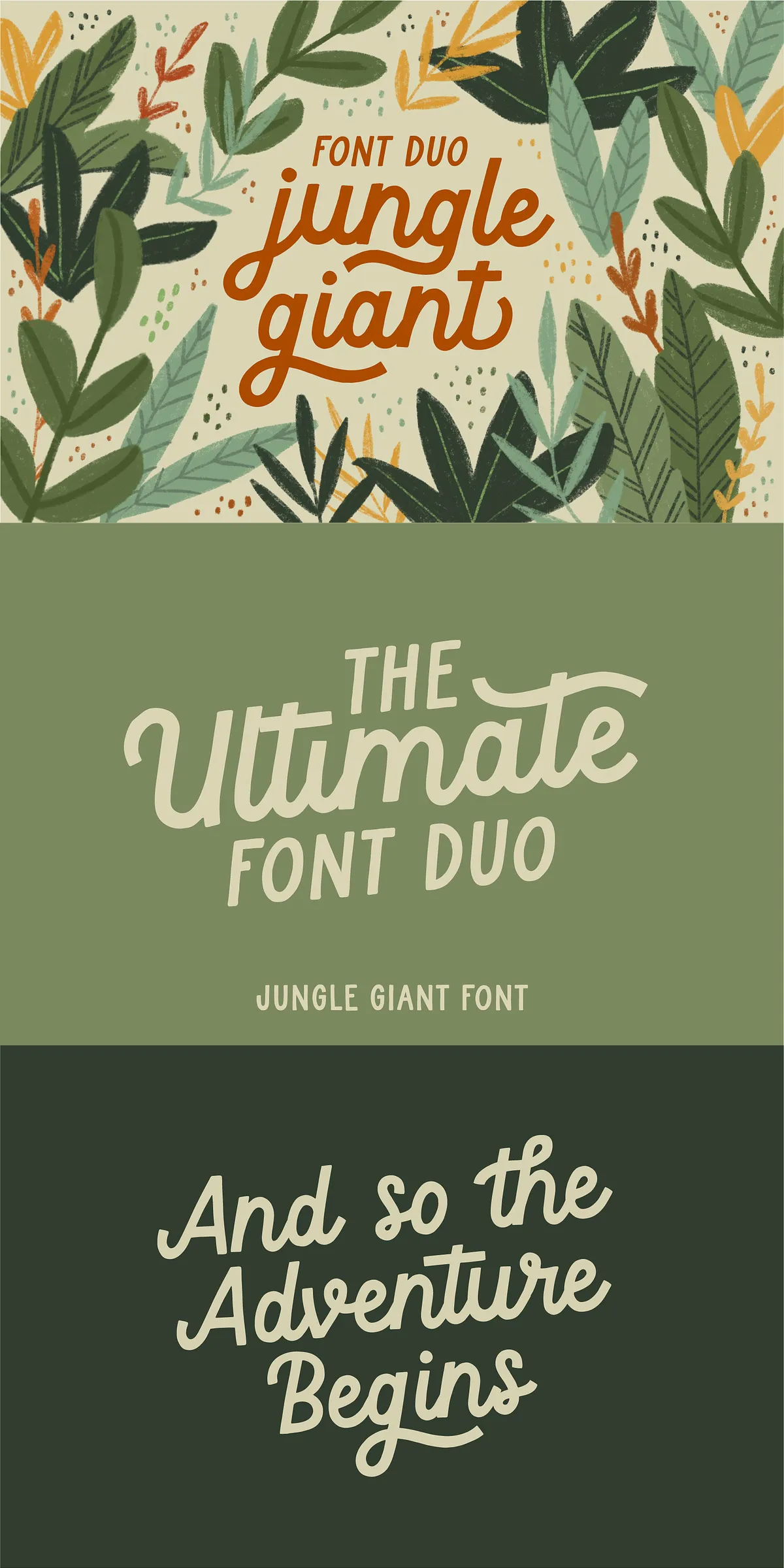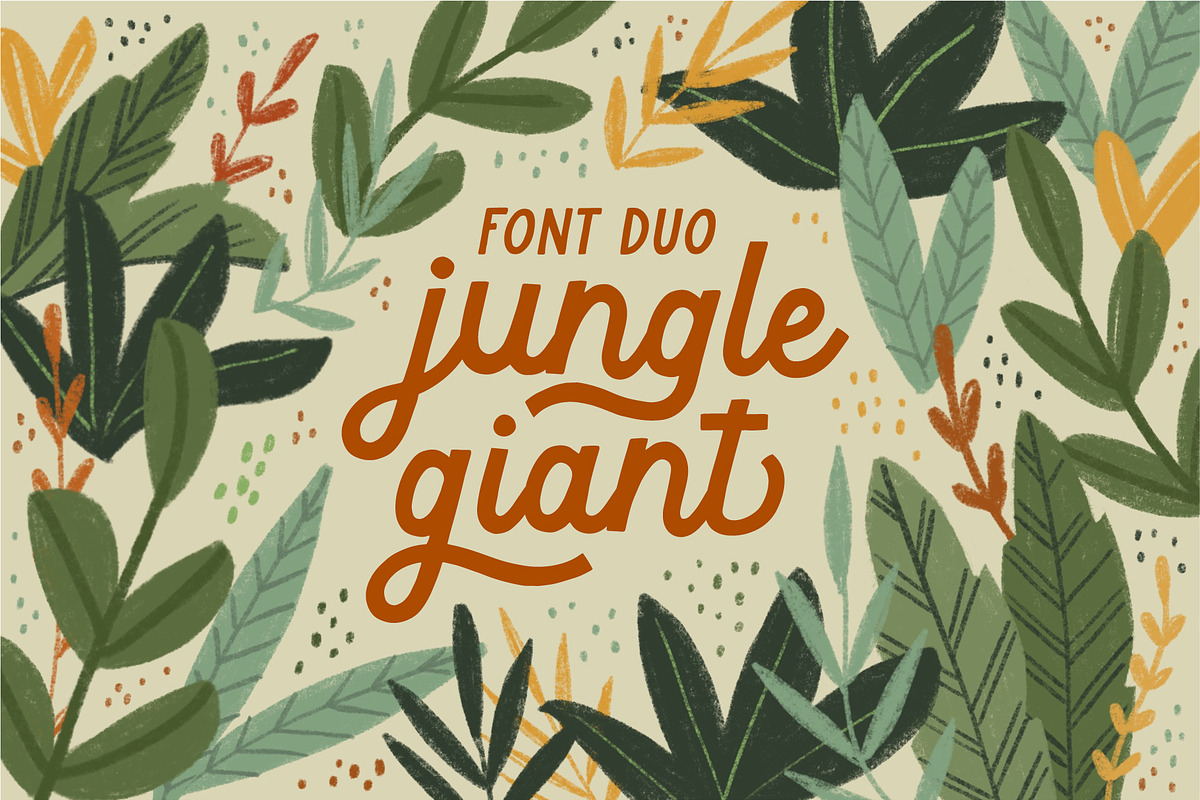
Meet Jungle Giant – a dynamic, quirky, and irresistibly organic font duo that turns your designs into vibrant expressions of creativity. Perfect for brands that refuse to blend in, social media posts that demand attention, and marketing campaigns that thrive on personality. This isn’t just a font — it’s a creative revolution wrapped in hand-drawn charm and built for impact.
The Power of Playful & Organic Design
Jungle Giant captures the unfiltered energy of sketchbook experiments. Each letter feels hand-drawn, with uneven lines, subtle imperfections, and a raw, spontaneous rhythm that modern digital fonts often lack. This organic aesthetic brings a sense of warmth, authenticity, and fun — making your message feel personal, human, and unforgettable.
- Quirky Hand-Drawn Vibe: Every character bursts with individuality, giving your project a unique, one-of-a-kind presence.
- Dynamic Contrast: The seamless pairing of a bold sans-serif and fluid script creates visual tension that pulls the eye and holds attention.
- Playful Confidence: Designed for brands and creators who aren’t afraid to stand out — perfect for edgy, youthful, or imaginative identities.
Whether you’re building a fun lifestyle brand or designing a social media campaign with punch, Jungle Giant injects life into every pixel.
Rich Script Variety with 35+ Alternates & Swashes
The script component of Jungle Giant is a treasure chest of expressive options. With over 35 stylistic alternates, swashes, and contextual variations, you’ll never have to repeat a letterform. Use these features to:
- Create rhythm and motion in headings.
- Match the tilt and mood of your design with precision.
Choose from elegant swashes for high-end projects or wild, exaggerated flourishes for bold, attention-grabbing visuals. The script adapts to your intent — from subtle charm to full-on dramatic flair.
Two Styles, Infinite Possibilities: Regular & Italic Print
Complementing the expressive script is a versatile sans-serif print typeface with two distinct styles:
- Regular Style: Clean, bold, and upright — perfect for captions, titles, or standalone text that needs impact without clutter.
- Italic Style: Slightly tilted and dynamic — harmonizes perfectly with the slant of the script, creating visual unity and motion across your layout.
You can pair them for maximum contrast, or use them independently depending on your project’s tone. The ability to match tilt or stand alone gives you unmatched flexibility in layout and typography hierarchy.
Professional Features for Seamless Workflow
Jungle Giant isn’t just creative — it’s built for real-world design. Every detail has been optimized for performance, compatibility, and ease of use:
- Multiple Ligatures & Contextual Alternates: Ensures smooth, professional rendering across all platforms.
- Uppercase and Lowercase Support: From grand headlines to small captions, all characters are fully designed.
Engineered for Branding, Marketing & Digital Impact
- Product Packaging: Add fun, hand-crafted vibes to labels, boxes, and merch — perfect for cosmetics, snacks, or stationery.
Perfect Pairings: When Jungle Giant Meets the Right Companions
Let the script speak. Let the print ground it. Let the pairing tell the story.